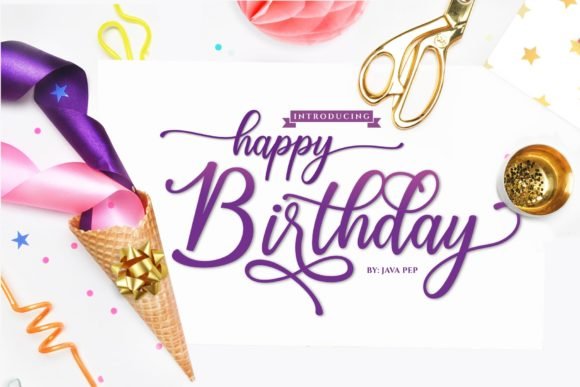
The Perfect Script for Celebrating Life’s Moments
Have you ever stared at a blank canvas, trying to come up with the perfect design to commemorate a milestone birthday? The pressure to create something truly special can be overwhelming, but what if you had the perfect tool to make it happen? Enter the Happy Birthday Font, a stunning script font that’s sure to add a touch of elegance and sophistication to your next design project.
With its unique style and bold feel, the Happy Birthday Font is a must-have for designers looking to elevate their work. Whether you’re creating a birthday invitation, a party decoration, or a heartfelt gift, this font is sure to make your design stand out. Its versatility and timeless appeal make it a valuable addition to any designer’s toolkit, and we can’t wait to show you just how amazing it is!
- Unique Characteristics: The font features a playful, cursive design with swashes and flourishes, making it perfect for birthday celebrations and other festive occasions.
Happy Birthday Font Review
Overall, I think the Happy Birthday Font is a great addition to any designer’s toolkit, but like any font, it has its strengths and weaknesses. ✨
- Cute and playful design that’s perfect for birthday-themed projects.
- Wide range of languages supported, making it a great option for international designs.
- Relatively lightweight, so it won’t slow down your design workflow.
- Great for social media graphics, invitations, and other party-related materials.
While the Happy Birthday Font is a solid choice, there are a few things to keep in mind:
- Not ideal for professional or formal designs, as it may come across as too casual.
- No bold or italic variations, which can limit its versatility.
- Might not be the best choice for smaller text sizes, as it can become difficult to read.
I’d give the Happy Birthday Font 4 out of 5 stars. It’s a fun and functional font that’s perfect for birthday-themed projects, but may not be the best fit for more formal or professional designs. ⚠️
The Happy Birthday font is ideal for creating festive and playful designs, such as:
- Invitations and party decorations
- Gift tags and cards
- Social media posts and graphics
Alternatives to Happy Birthday Font for Designers
Great Vibes Font is a modern and elegant script font perfect for creating a celebratory atmosphere. It’s ideal for birthday invitations, greeting cards, and party decorations. Great Vibes Font offers a more sophisticated look compared to Happy Birthday Font, making it suitable for adult-themed parties or special occasions.
Comparison to Happy Birthday Font: Great Vibes Font is more refined and polished, whereas Happy Birthday Font is more playful and childlike.
Dancing Script Font is a lively and energetic script font that adds a touch of whimsy to any design. It’s perfect for birthday party decorations, invitations, and social media graphics. Dancing Script Font is more versatile than Happy Birthday Font and can be used for various occasions, from birthdays to weddings.